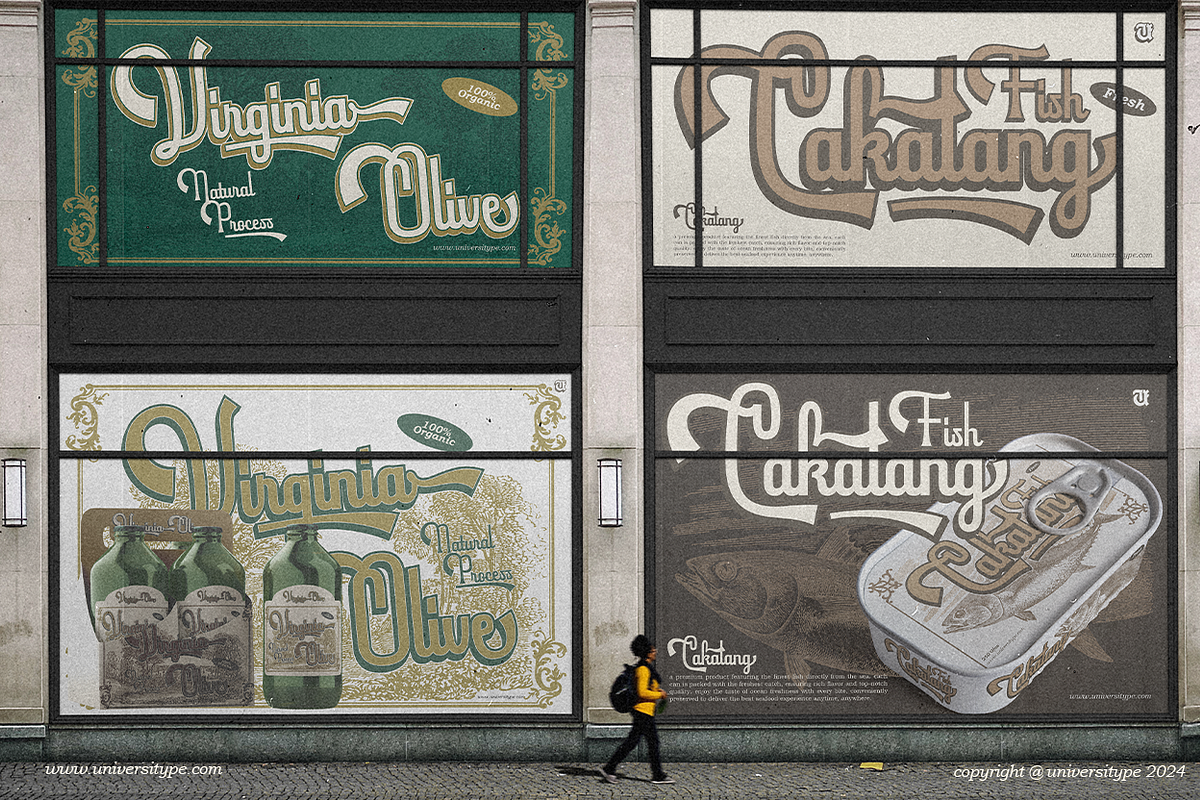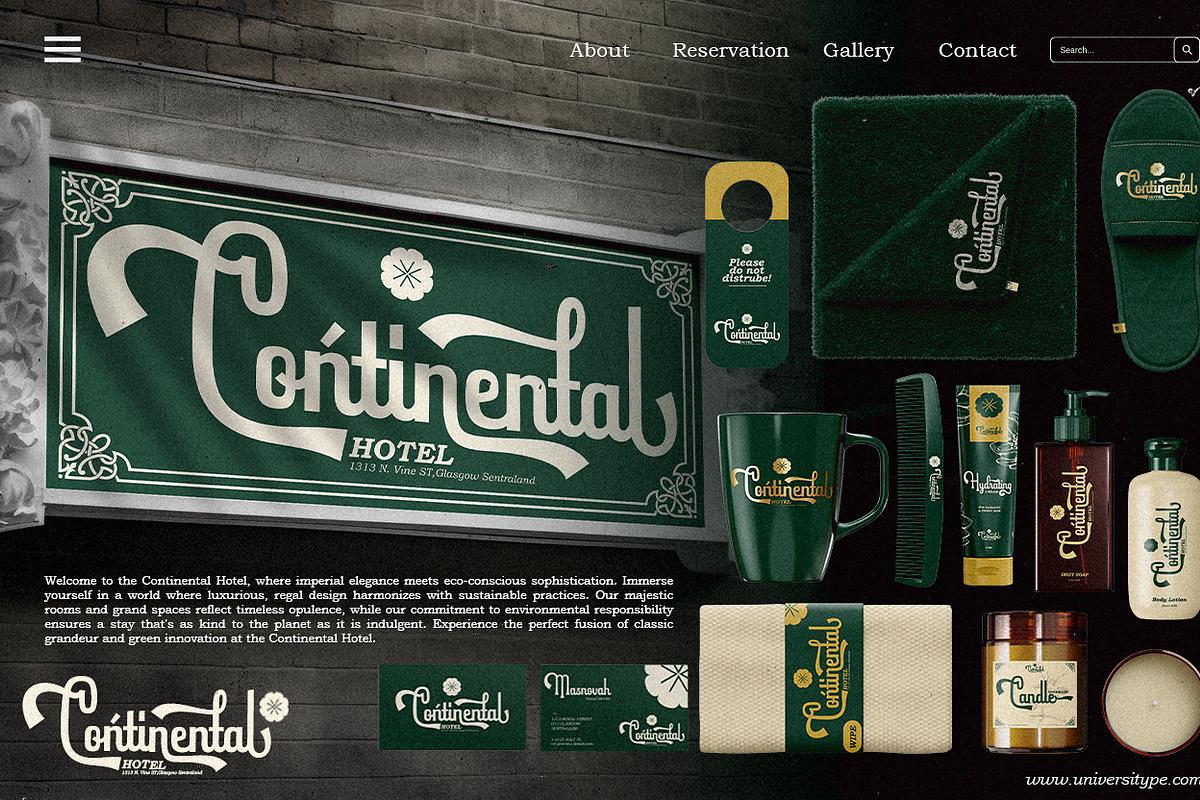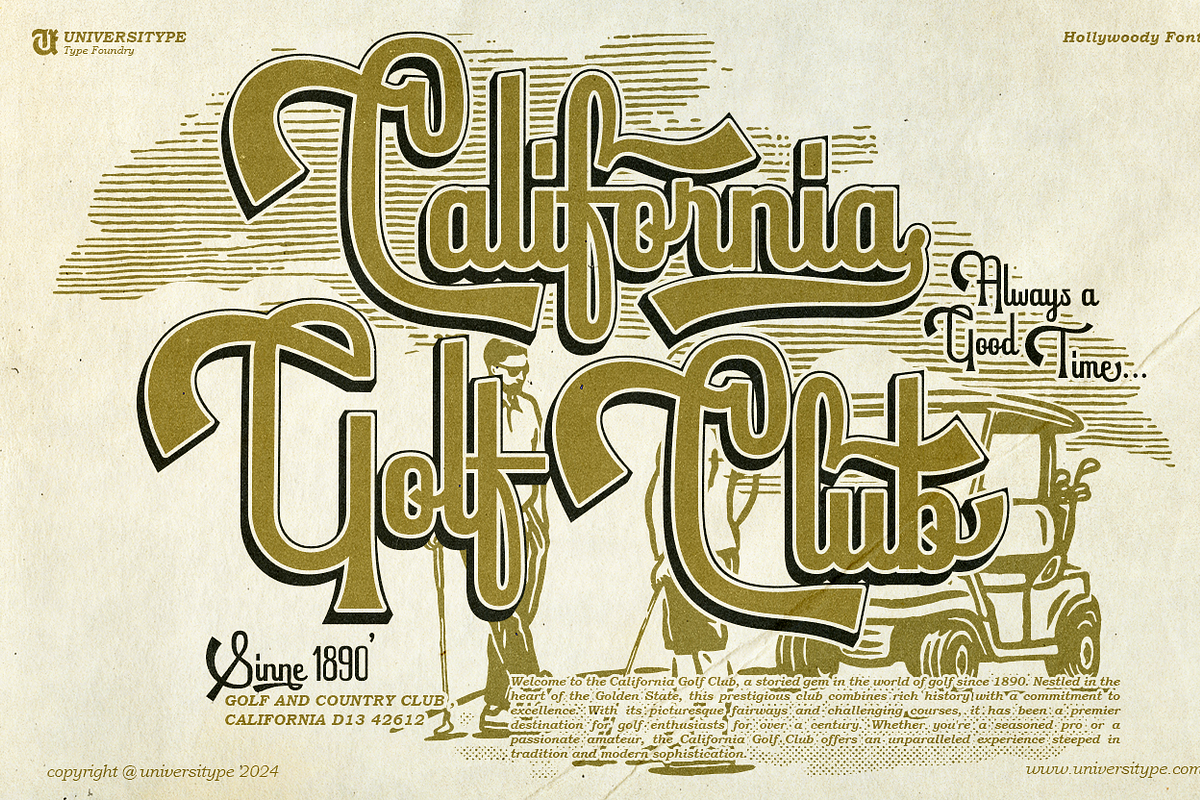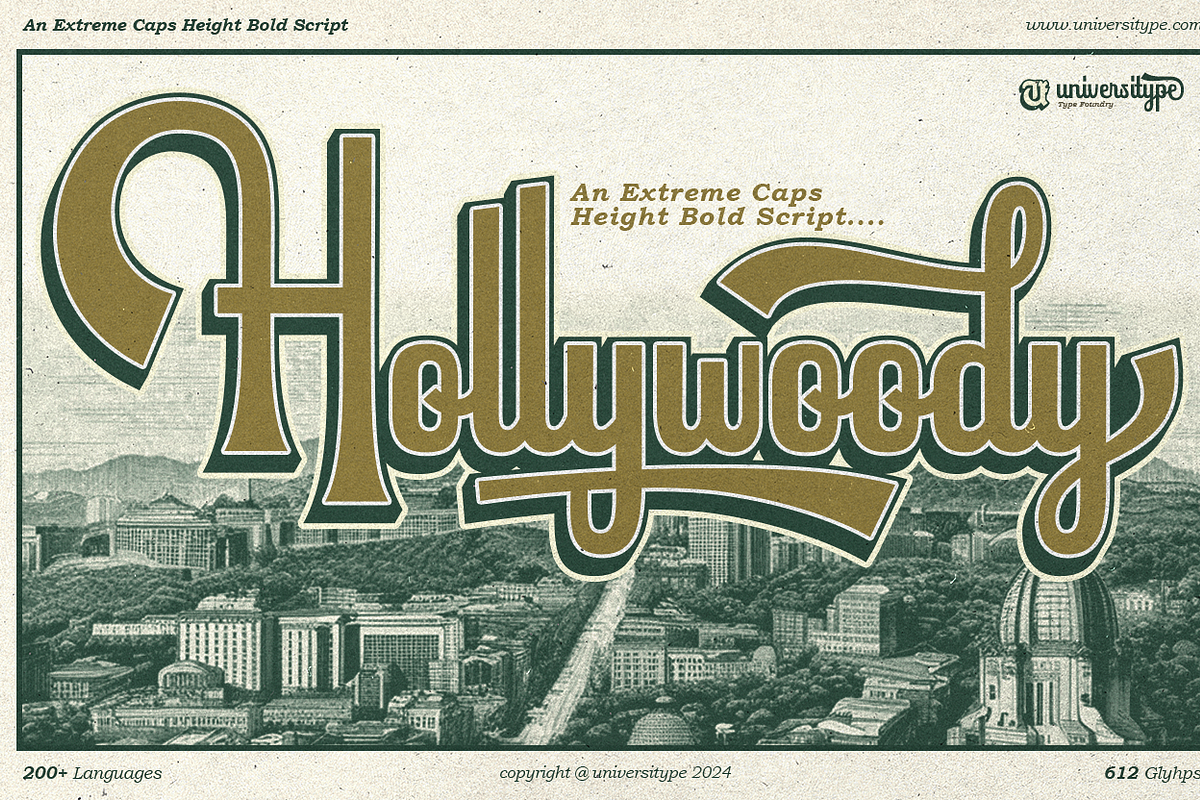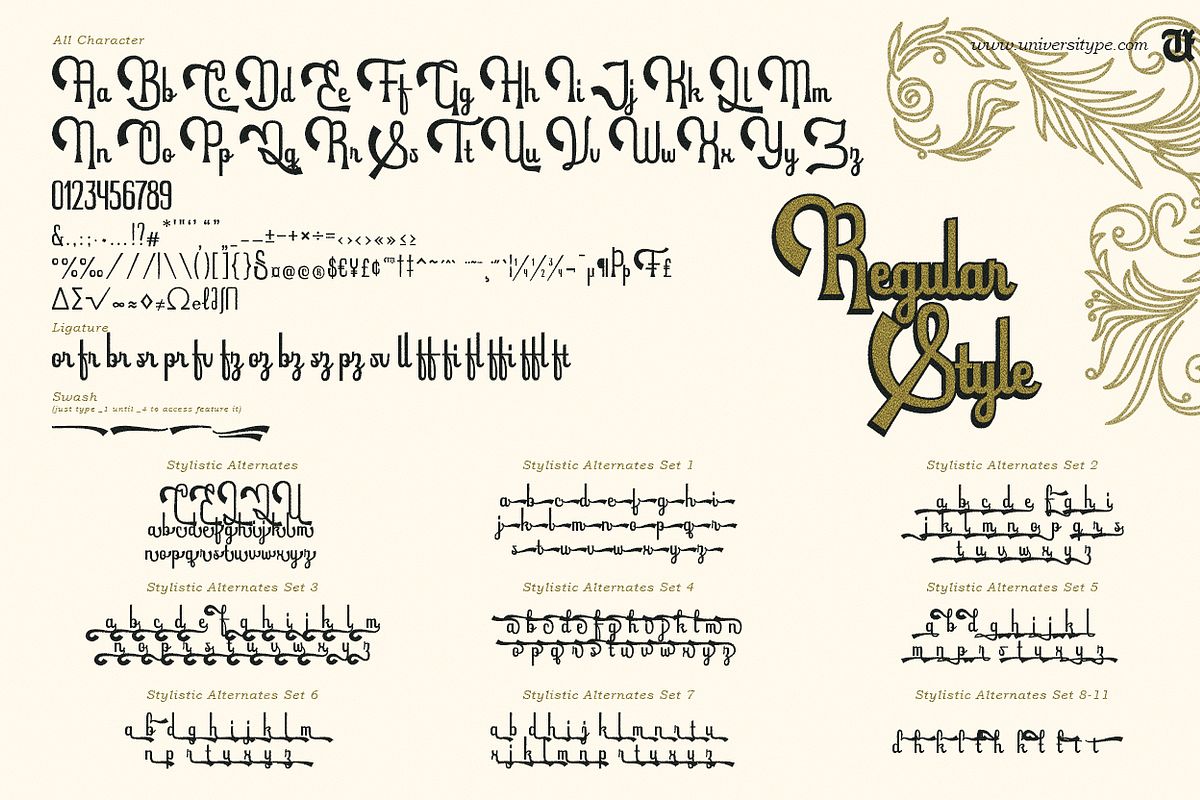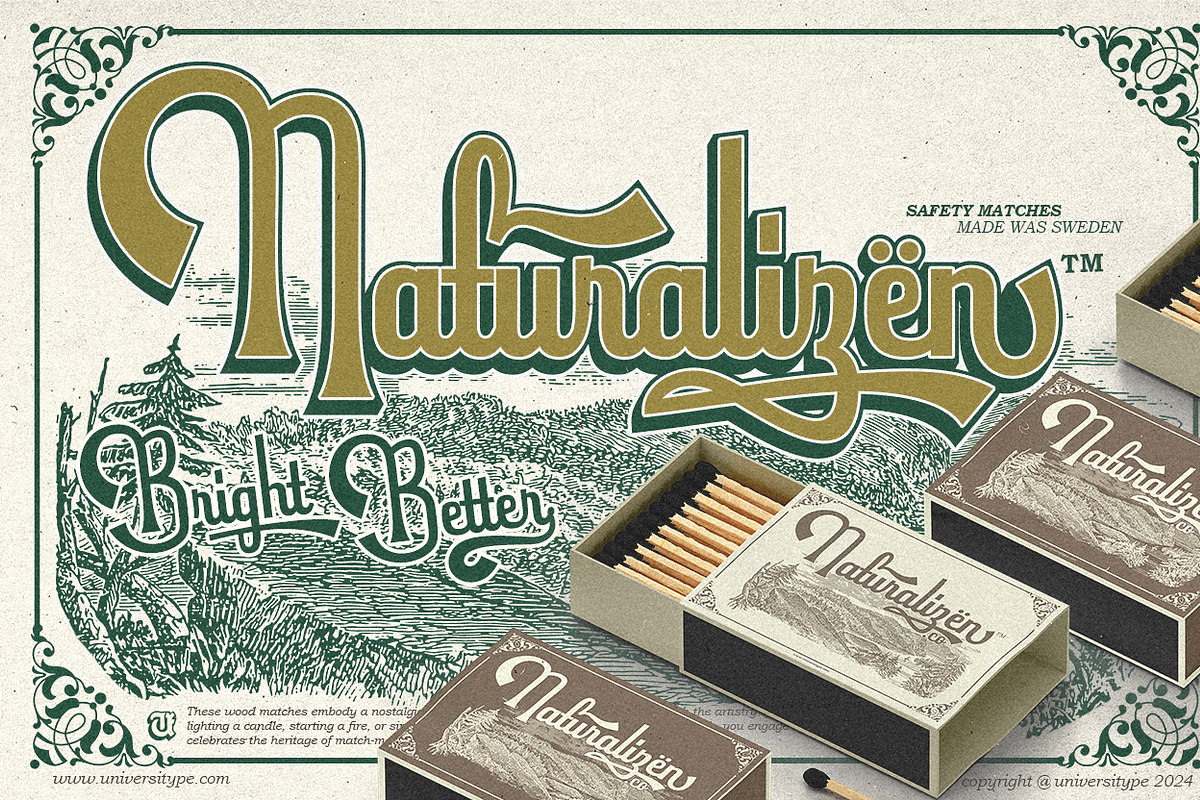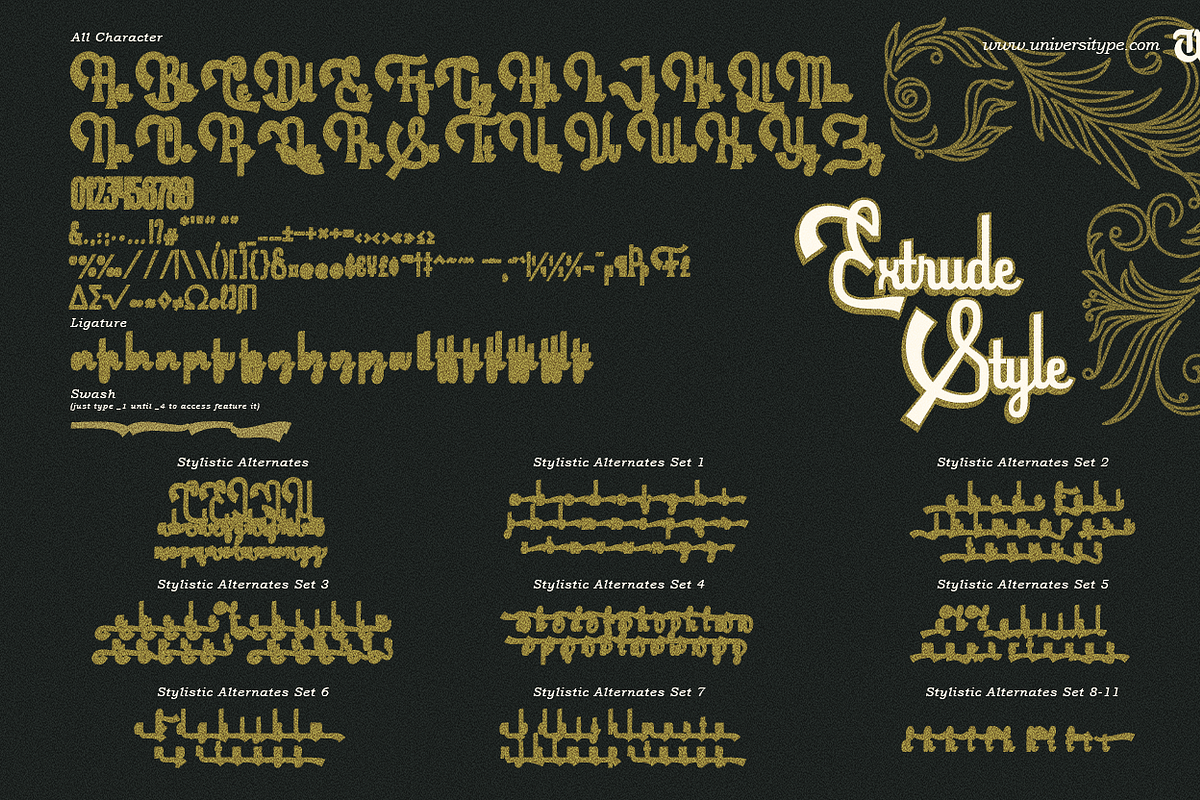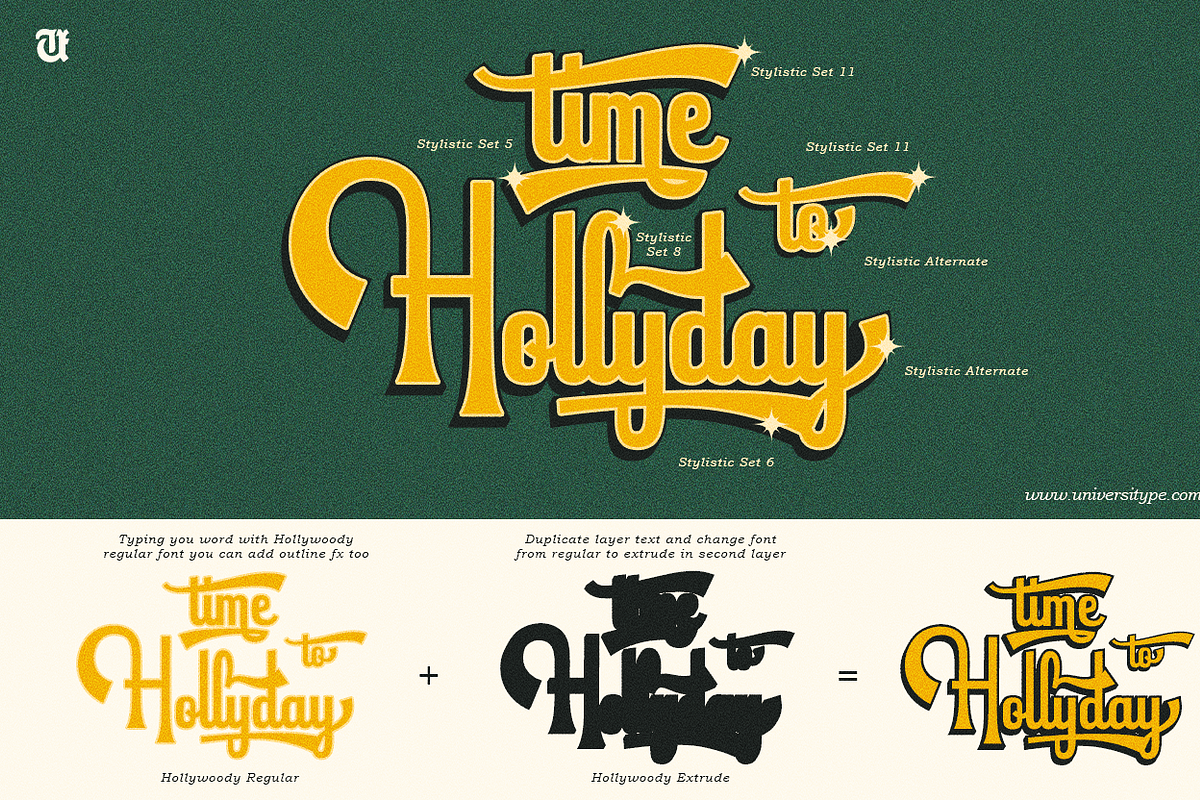
UT Hollywoody - A Vintage Script
UT Hollywoody, a typeface where the boldness of today meets the vintage charm of yesterday. With its striking, tall caps and nostalgic curves, this script transports you to a time when Hollywood was the epitome of glamour and charisma. Imagine the marquees of old movie theaters, the bold signage of iconic studios — UT Hollywoody captures that spirit, yet is designed for the demands of modern design.
Crafted with Creative Expression in Mind This font is not just about aesthetics; it’s about making a statement. Whether you’re working on a logo, packaging, or a marketing campaign, UT Hollywoody brings an unmistakable sense of drama and sophistication to any project. Its extreme caps height and bold, sweeping strokes make it the perfect choice for when you need your design to be loud and proud, yet remain polished and professional.
Versatile Features for Endless Creativity What sets UT Hollywoody apart is its versatility. With 11 stylistic sets, an array of alternates, ligatures, and swashes, this font offers endless opportunities for customization. You can use it to add subtle elegance to editorial layouts or create bold, eye-catching headlines. From retro-inspired logos to vintage-themed product packaging, UT Hollywoody provides the tools for designers to express themselves fully and authentically.
Perfect for Those Who Seek to Stand Out Ideal for designers and brands that aren’t afraid to go big, UT Hollywoody makes a lasting impact. Its retro Hollywood influence feels both nostalgic and refreshingly modern. Think of it as a bridge between eras — delivering a touch of mid-century allure, while still feeling relevant for contemporary applications. Whether your project calls for a touch of drama or a bold centerpiece, this typeface is your go-to.
Intended Usecase :
- Logos & Branding: Create memorable brand identities that capture attention and evoke emotion.
- Editorial Design: From magazine covers to book titles, this font adds that vintage Hollywood flair.
- Marketing Materials & Packaging: Give products and campaigns a standout look that demands attention.
- Social Media & Web Design: Perfect for bold headlines and visuals that need to pop on the screen.
Story Behind : Every font has a story, and UT Hollywoody’s began in the golden age of cinema. Growing up, We were captivated by the glamour of old Hollywood — not just the stars, but the way every detail, from the lights to the signage, seemed to shimmer with grandeur. It wasn’t just about movies; it was about the experience, the entire spectacle.
Designing UT Hollywoody felt like crafting a love letter to that era — but in a way that feels relevant and accessible for today’s creative needs. Every curve, every alternate, every stylistic set was a tribute to the beauty and drama of retro Hollywood, designed for modern applications. We wanted this font to be a tool for designers to create moments of awe, just as those vintage signs did for us.
What inspired us the most is a movie called Sunset Boulevard (1950). The film is a perfect reflection of the golden age of Hollywood, with its bold, dramatic storytelling and striking visual elements that echo the grandeur of classic cinema.
The movie’s iconic promotional materials, particularly its bold, high-contrast typography, often featured tall, dramatic letters reminiscent of studio signage from that era. The sense of elegance, yet underlying tension, that Sunset Boulevard captures is mirrored in the UT Hollywoody design — a font that combines boldness with the sweeping glamour of mid-century aesthetics.
Inspired by the grandeur of the film’s title sequences, set design, and larger-than-life characters, UT Hollywoody evokes the same retro charm, with tall caps and strong, sweeping strokes that feel both glamorous and imposing. Just like Sunset Boulevard encapsulated the fading allure of old Hollywood, this font aims to bring that same dramatic impact into the modern design world.
- Glyph Count: 612
- Languages Supported: 200+
- Features: Alternates, ligatures, stylistic sets, swashes
In conclusion, UT Hollywoody is more than just a typeface — it’s a tribute to the golden age of Hollywood, drawing inspiration from the striking, dramatic elements found in classic films like Sunset Boulevard. With its bold caps, sweeping curves, and vintage flair, this font encapsulates the charm, elegance, and grandeur of mid-century design, while offering modern versatility for today’s creative projects. Whether you’re designing for logos, packaging, or editorial spreads, UT Hollywoody brings a sense of timeless glamour and boldness that sets your work apart. Let it transport your designs to a time when bold typography and visual drama reigned supreme, while giving them a fresh, contemporary edge.